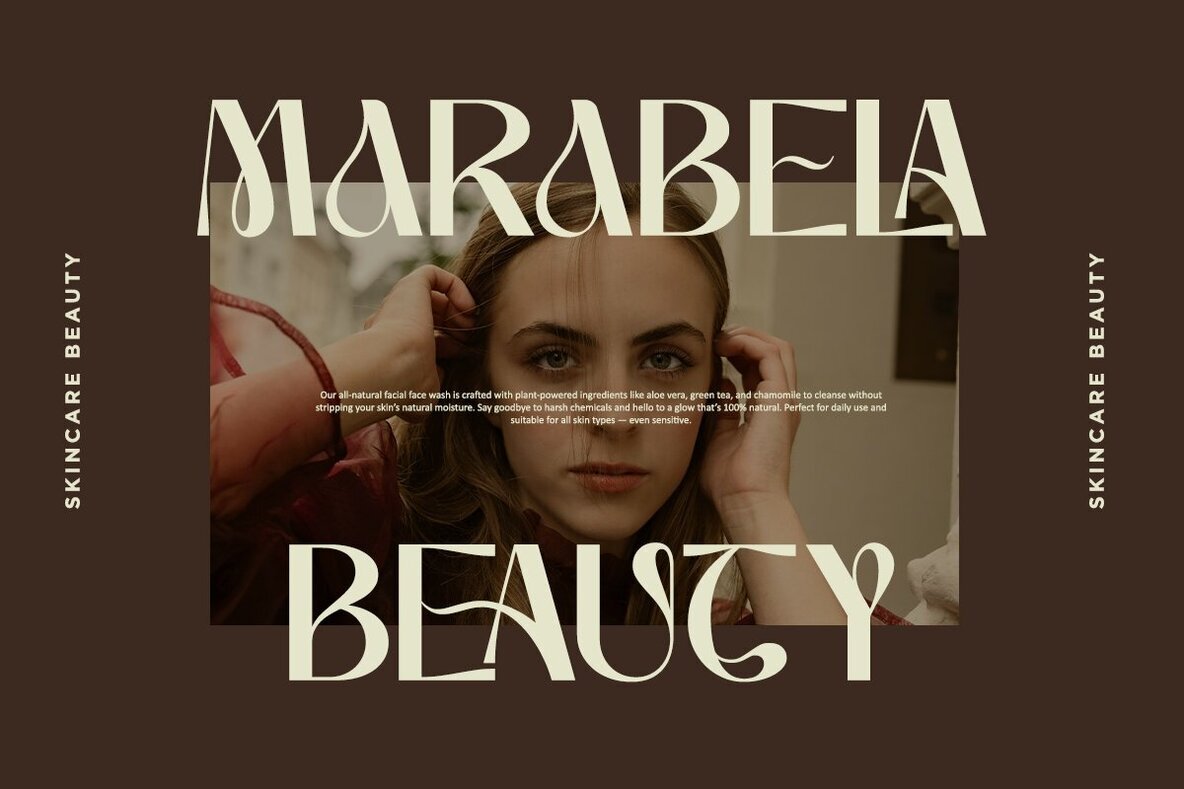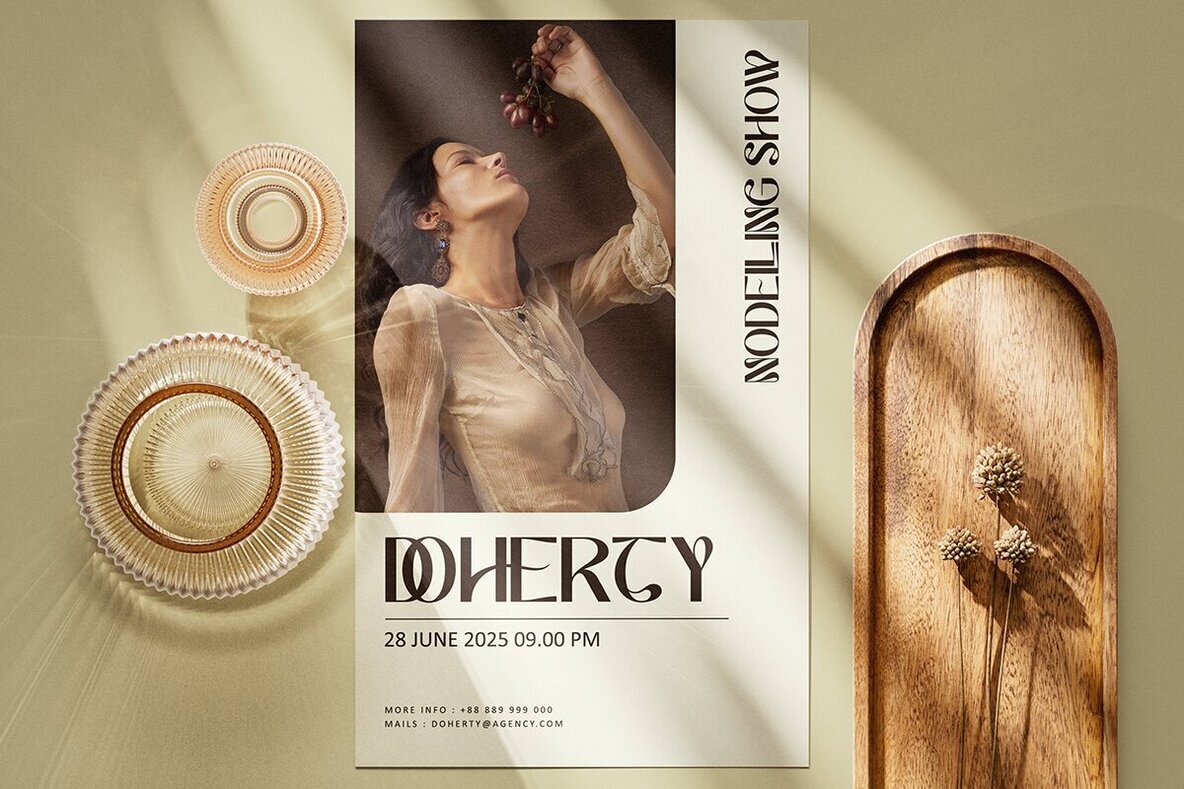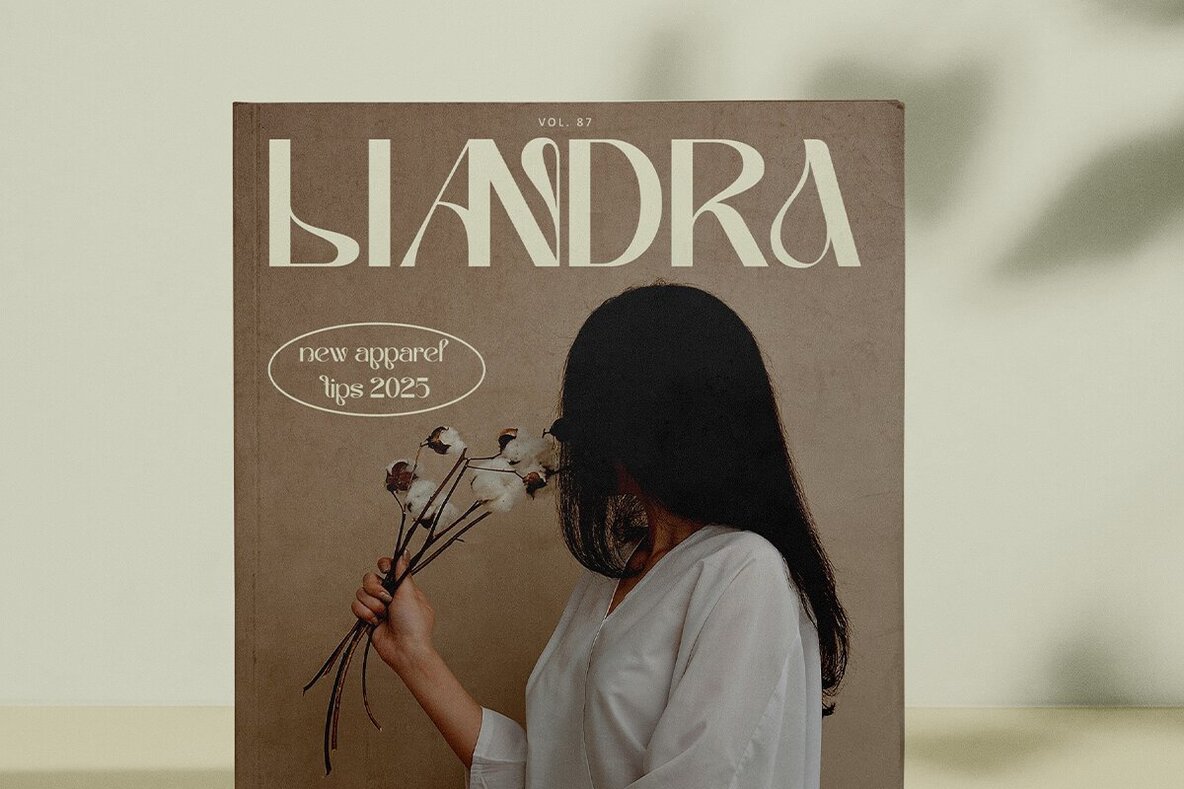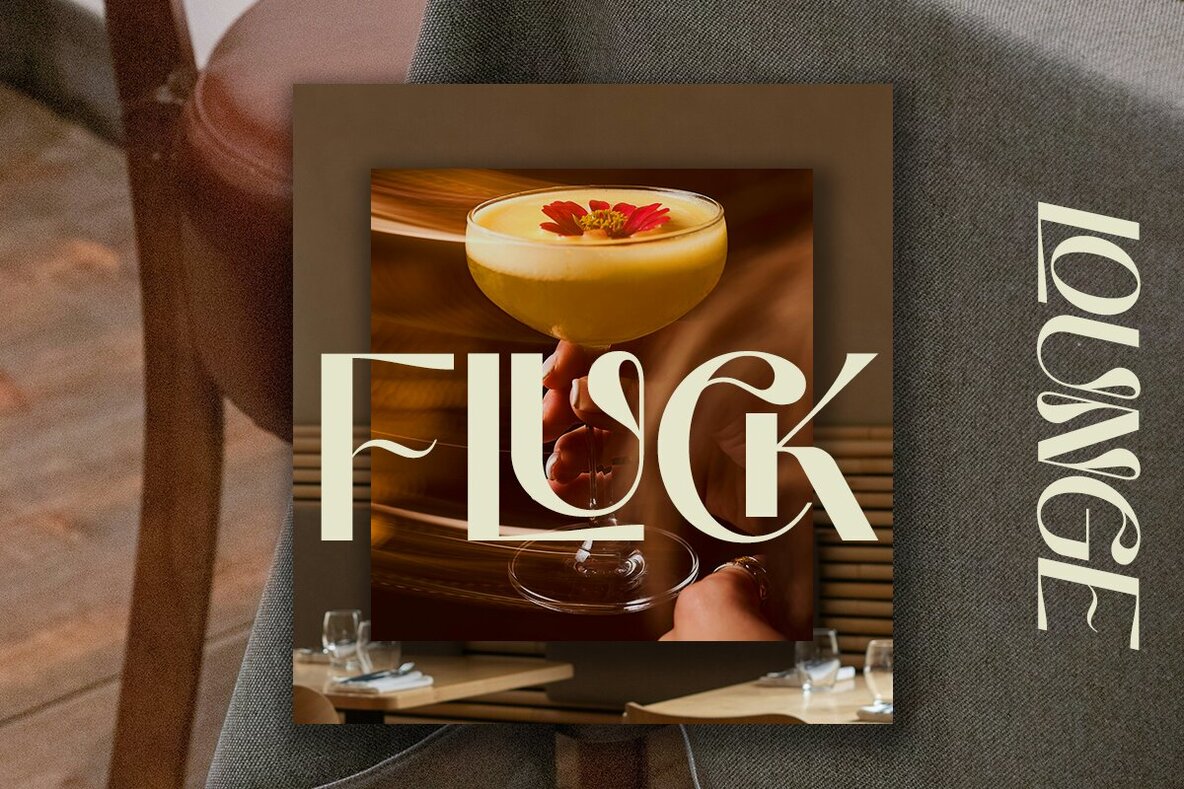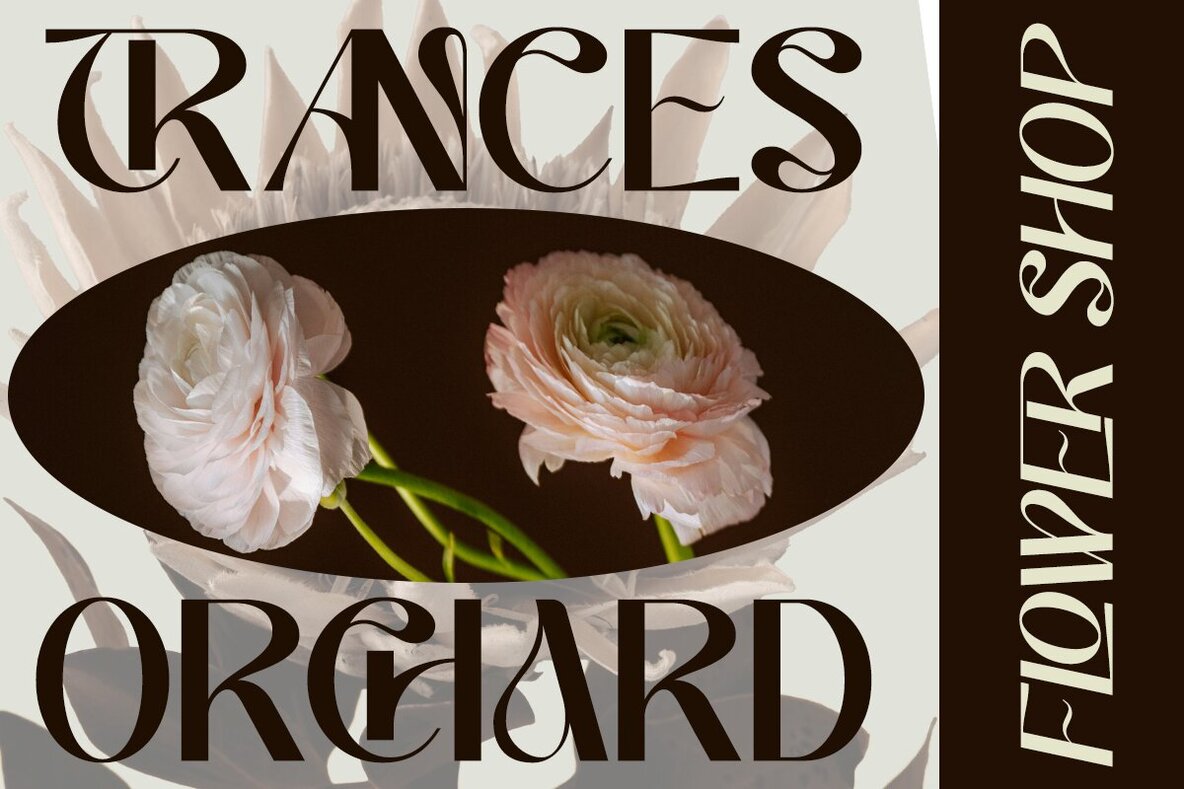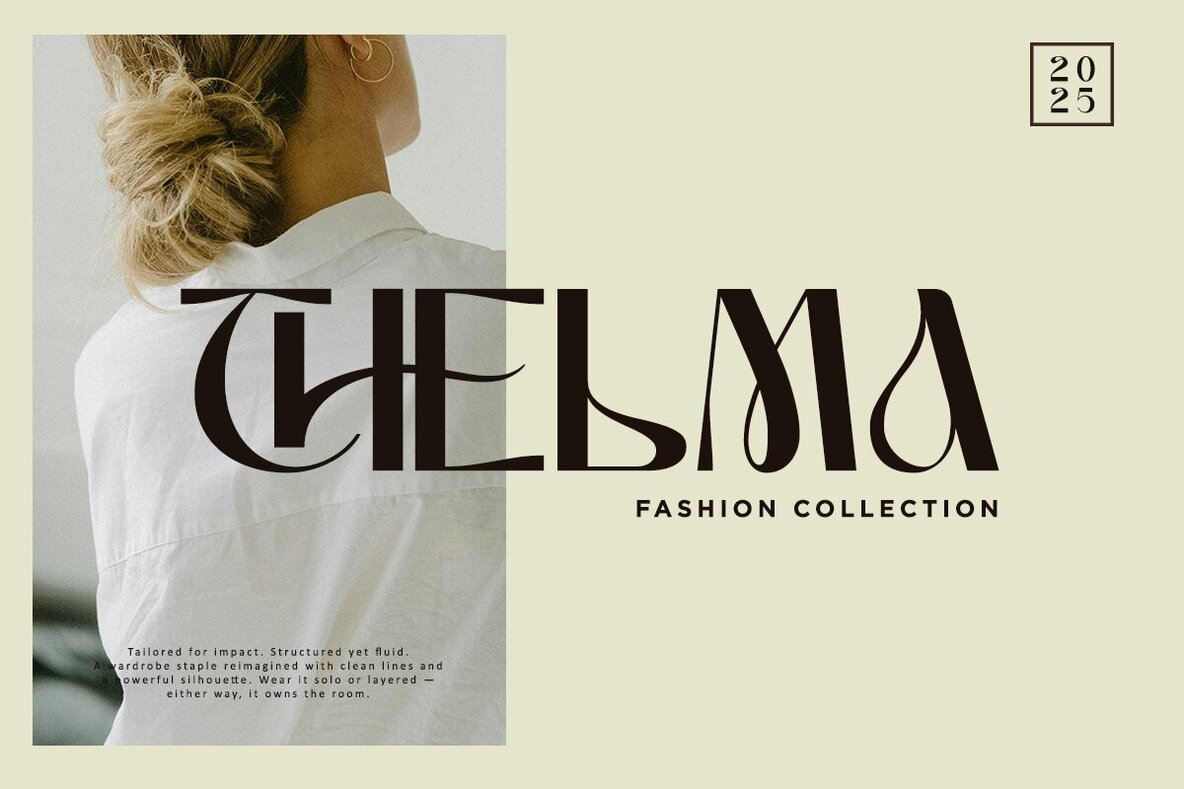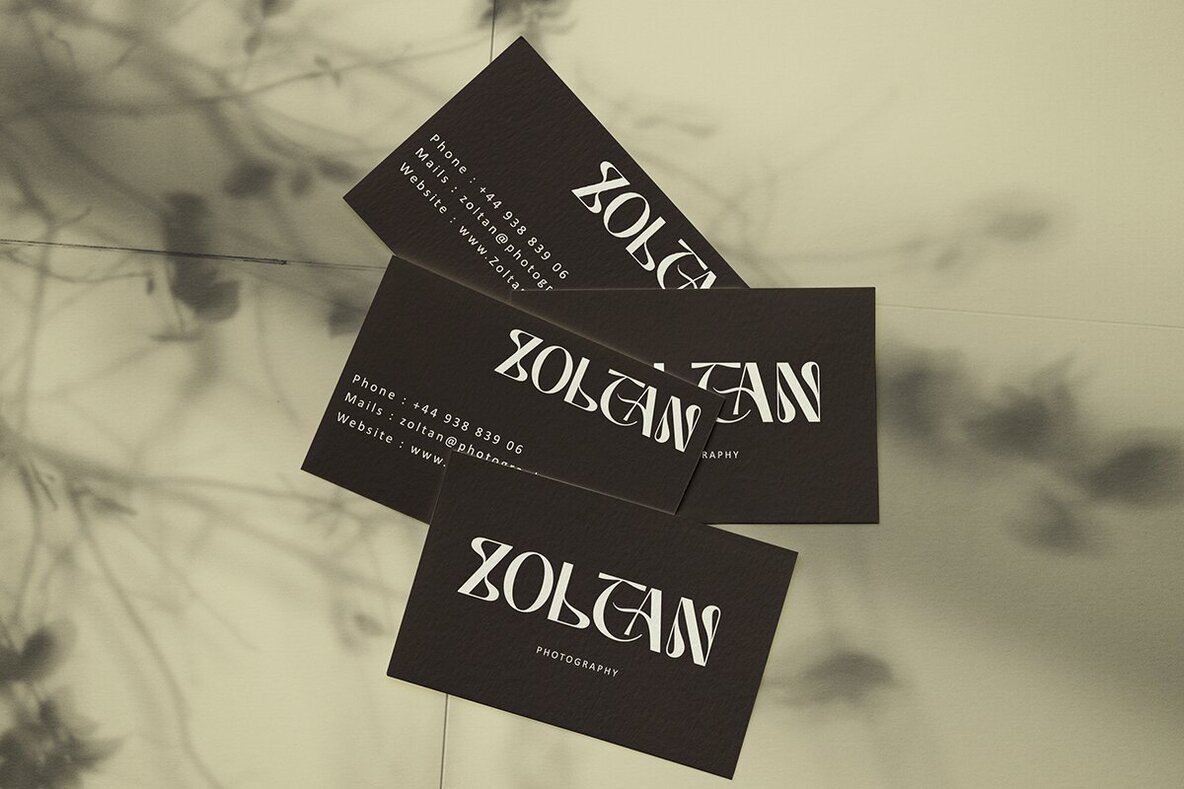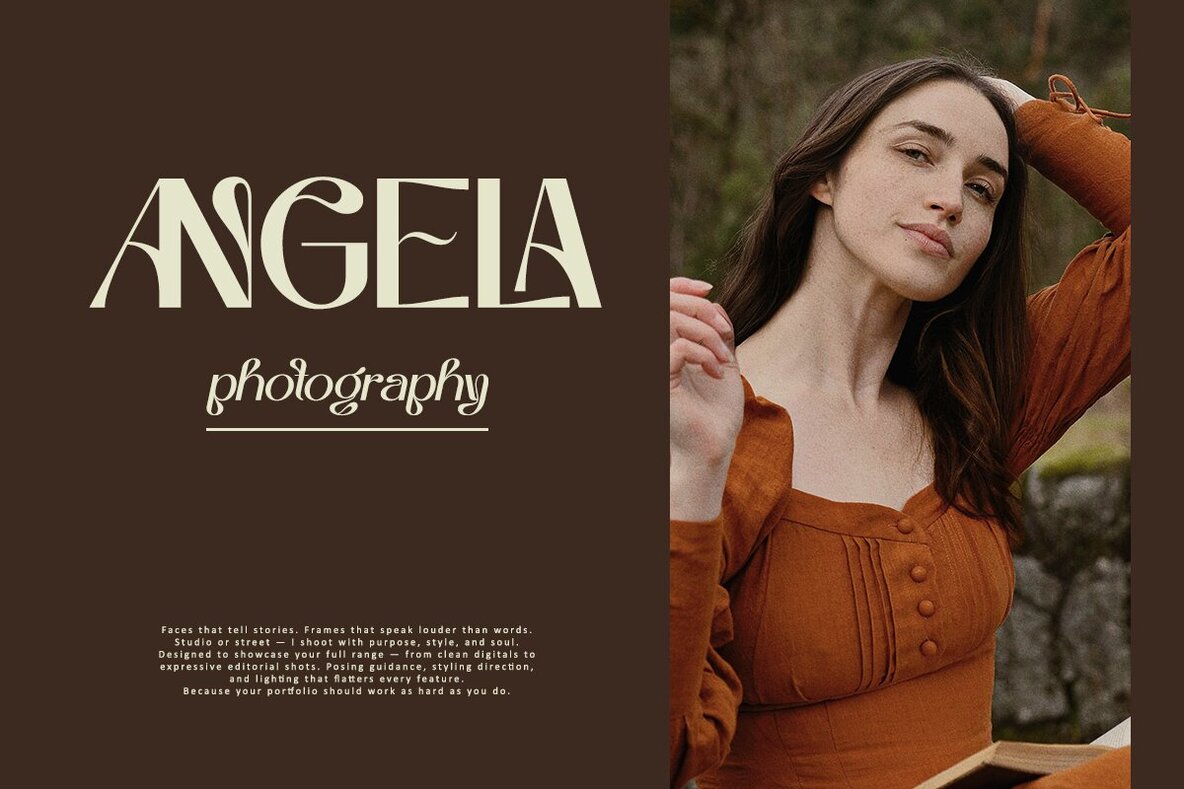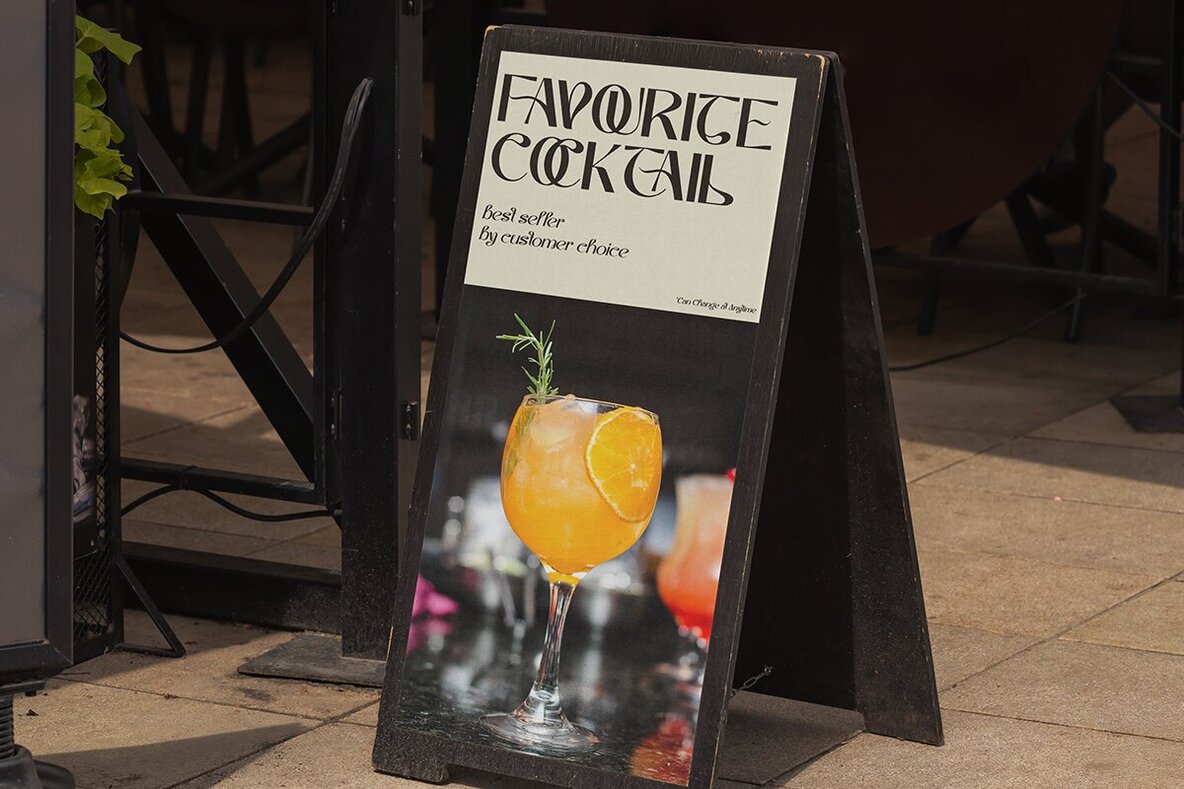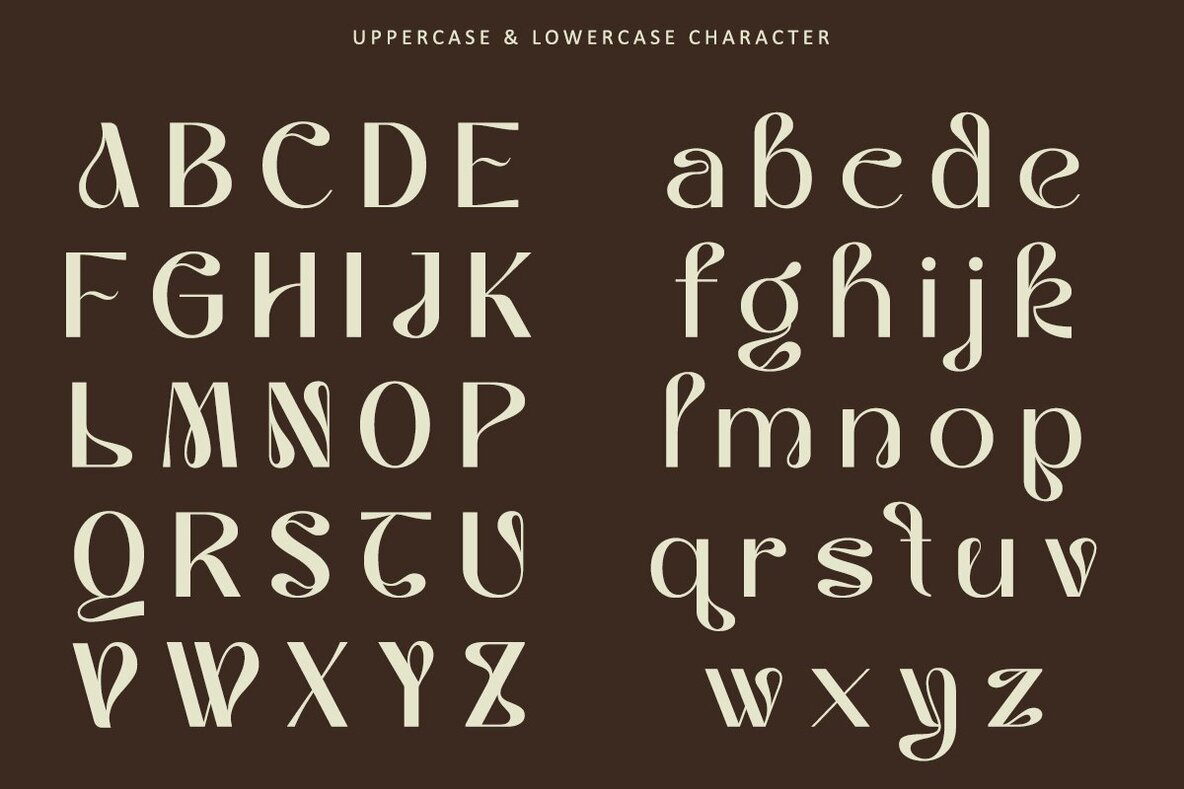
Reoctav Font
Reoctav captures the essence of timeless elegance and refined beauty, creating the perfect balance between sophistication and modern refinement. Its thin, striking letterforms and refined ligatures are ideally suited for applications in high-end branding, editorial design, and invitations, as well as sophisticated logos.Reoctav: Timeless Elegance in Sans Serif Form